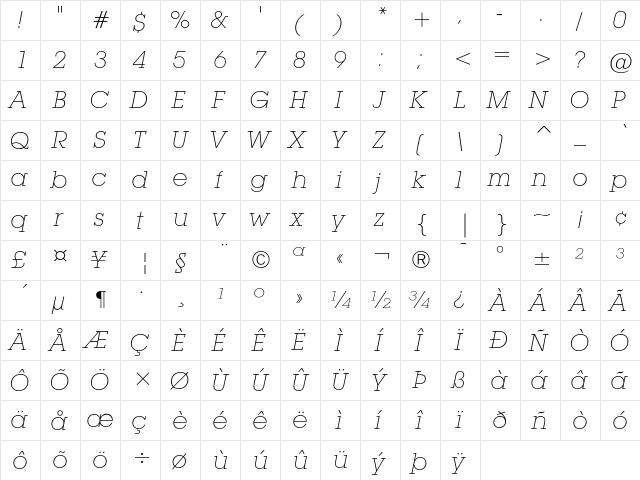
ITC Lubalin Graph Extra Light Oblique Font Preview
Design Context for ITC Lubalin Graph Typeface
ITC Lubalin Graph takes a measured approach to typography — its balanced proportions and neutral character make it a reliable workhorse for both digital and print work. Its italic angle brings a sense of urgency and motion to the letterforms. The delicate stroke weight brings airiness and refinement to layouts.